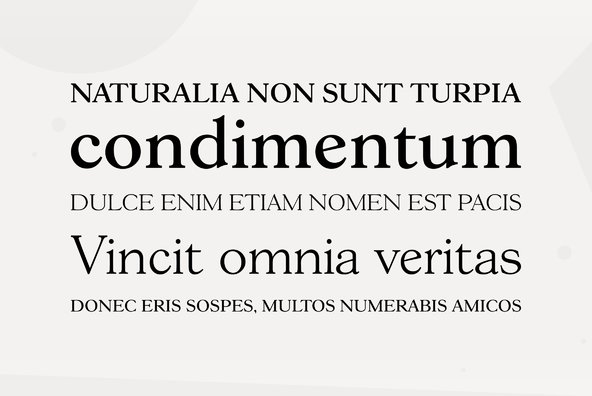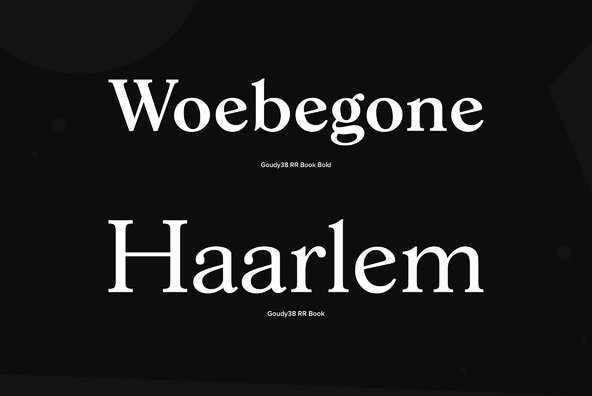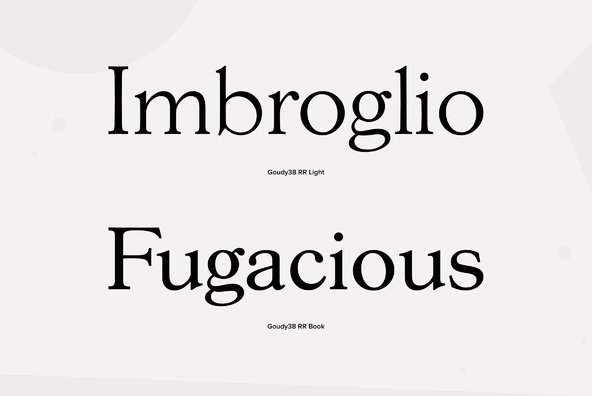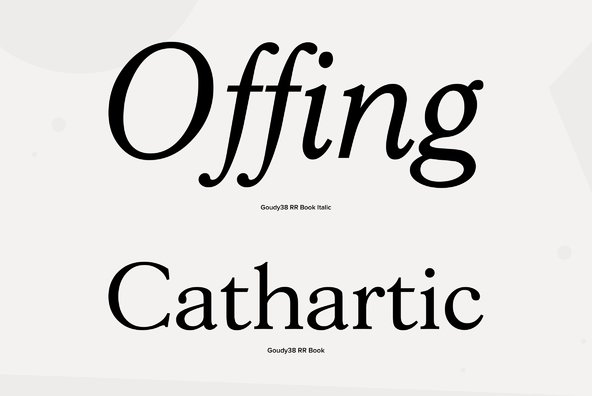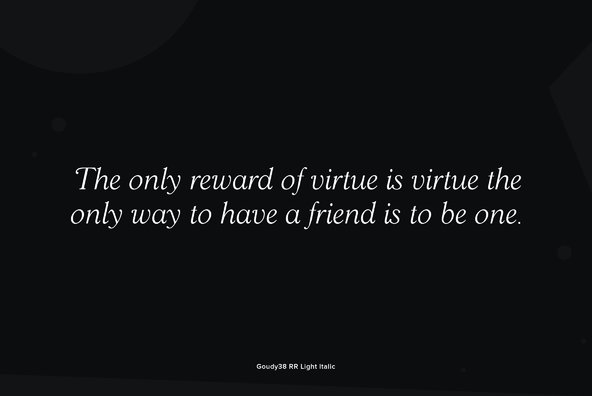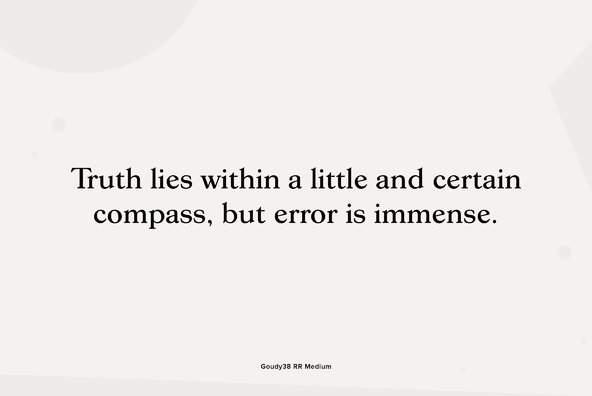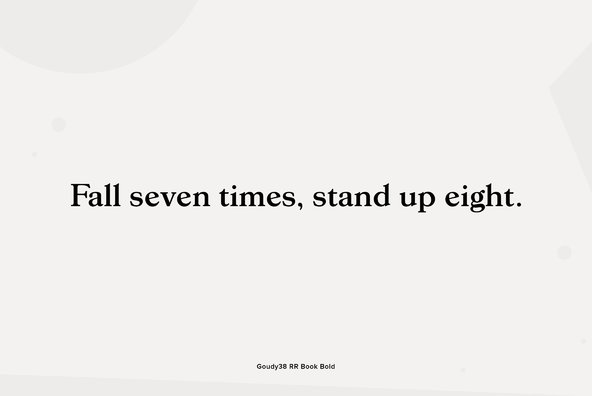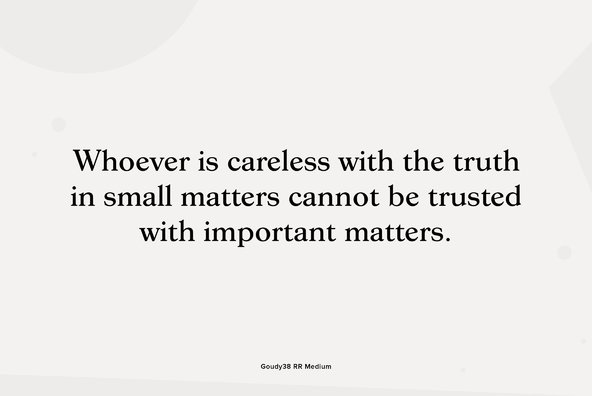
Goudy 38
Designed by Les Usherwood. Digitally engineered by Steve Jackaman. Originally designed by Frederick Goudy for the original Life magazine, circa 1908. The typeface was used almost exclusively for their advertising and was often known as Goudy Gimbel; but the typeface was better known by the Monotype series number Goudy 38. Designed by Les Usherwood. Digitally engineered by Steve Jackaman. Originally designed by Frederick Goudy for the original Life magazine, circa 1908. Because of delays in production the face was never used by the magazine. Gimbel Brothers, the famous New York department store, opened in 1910, around the time of the release of the typeface. The typeface was used almost exclusively for their advertising and was often known as Goudy Gimbel; but the typeface was better known by the Monotype series number Goudy 38.